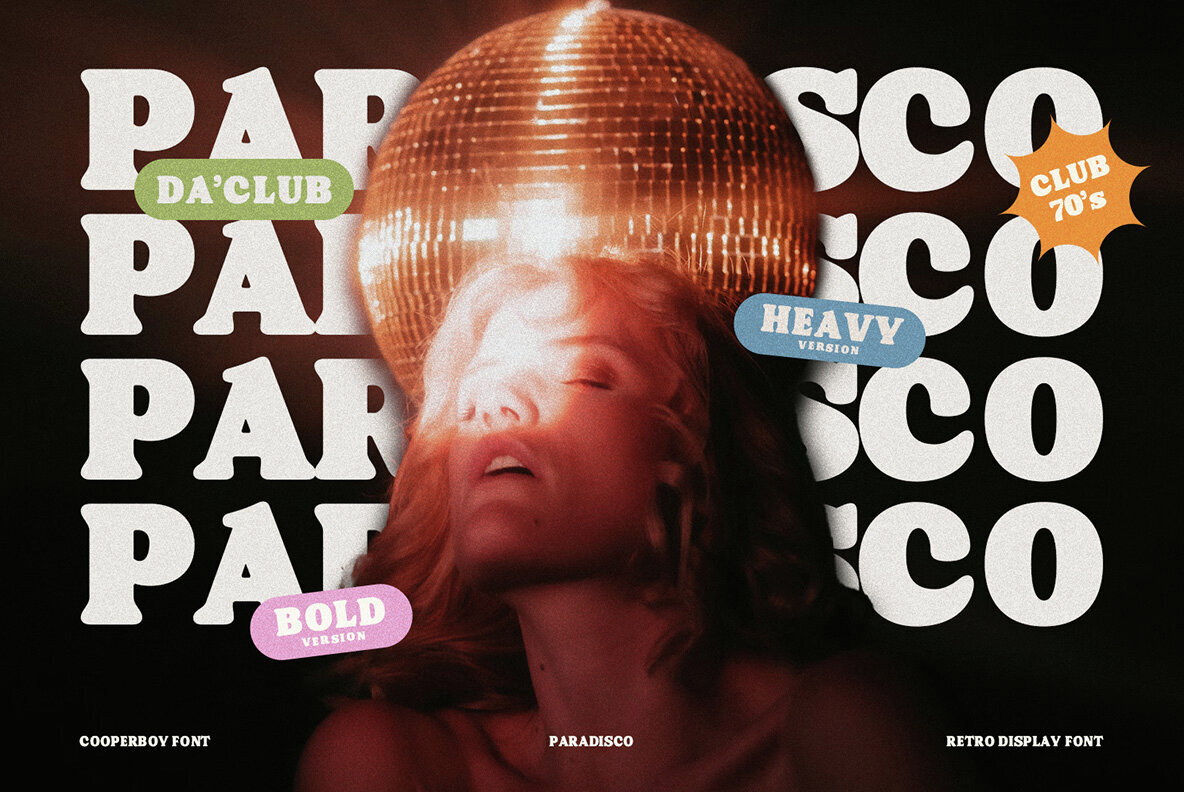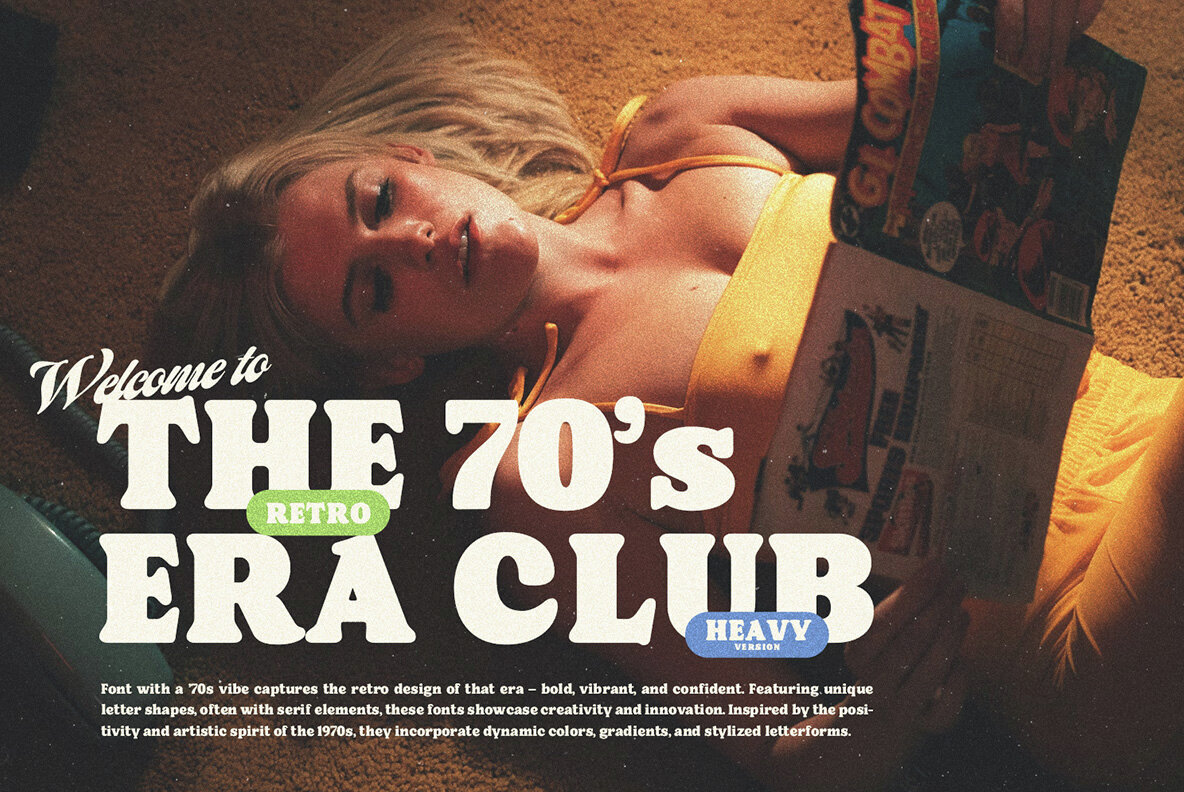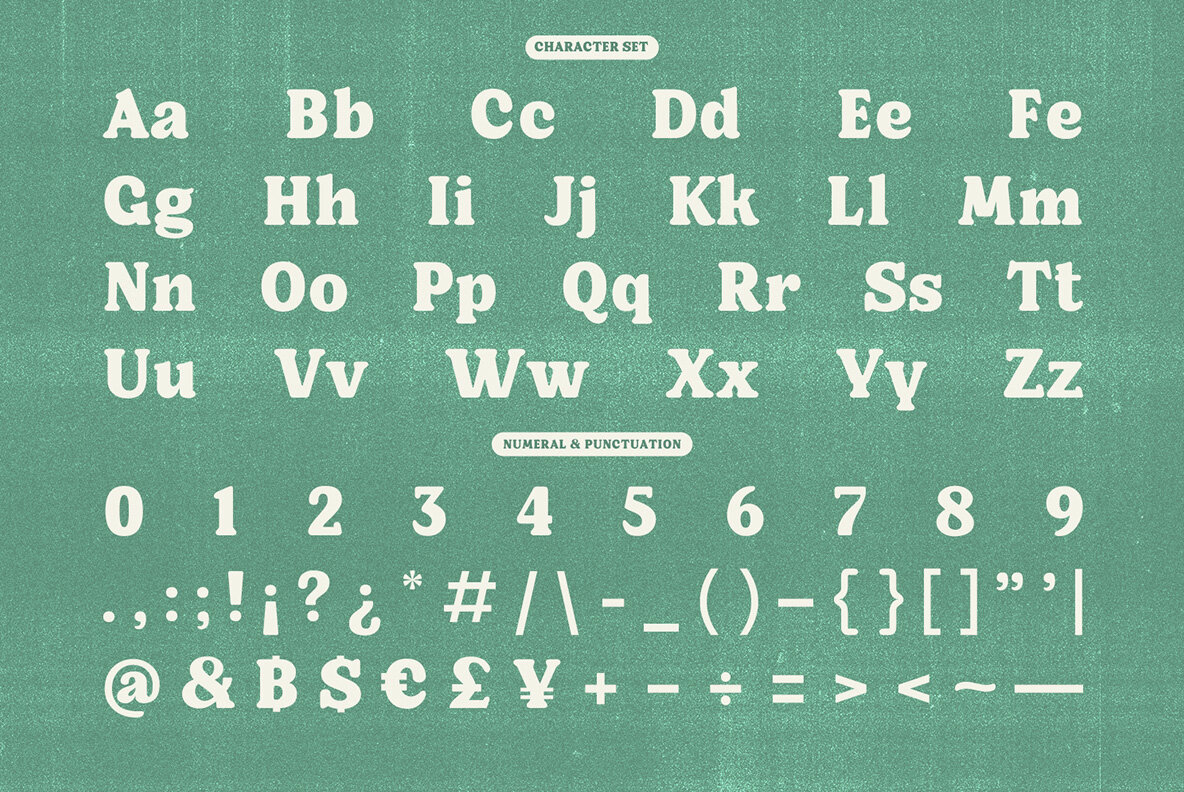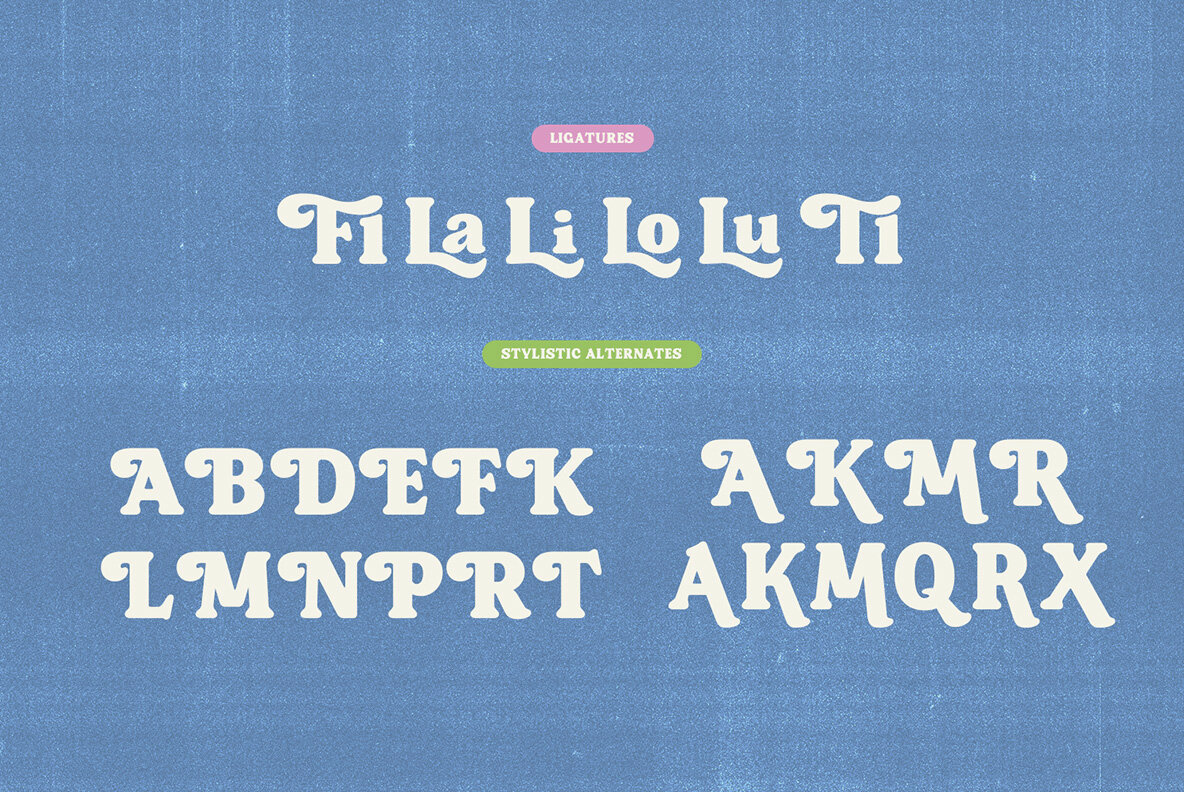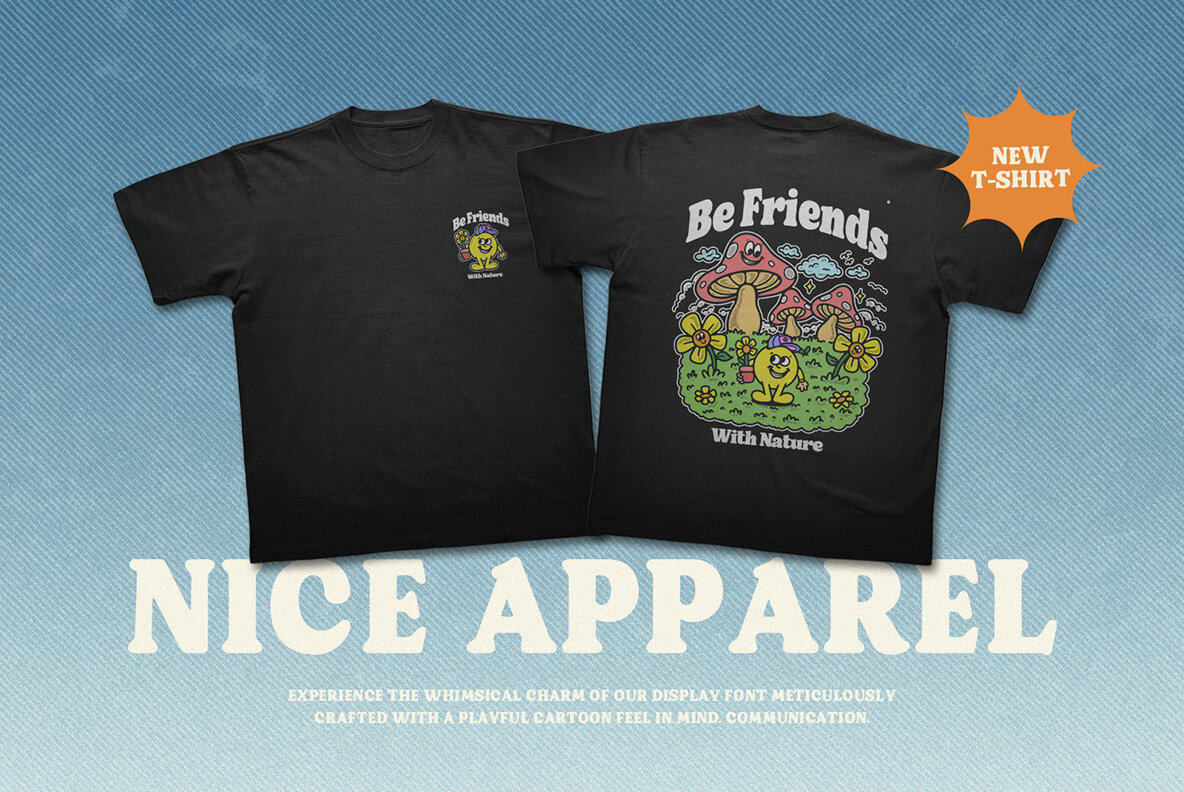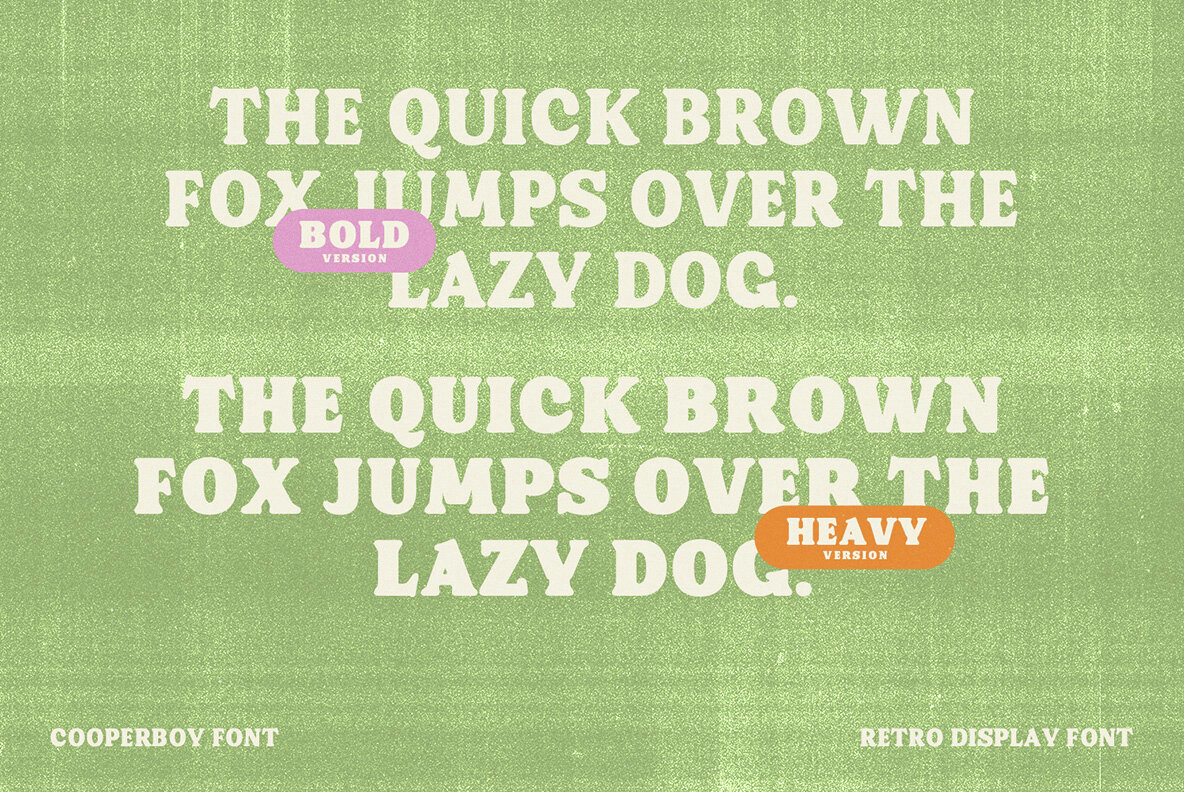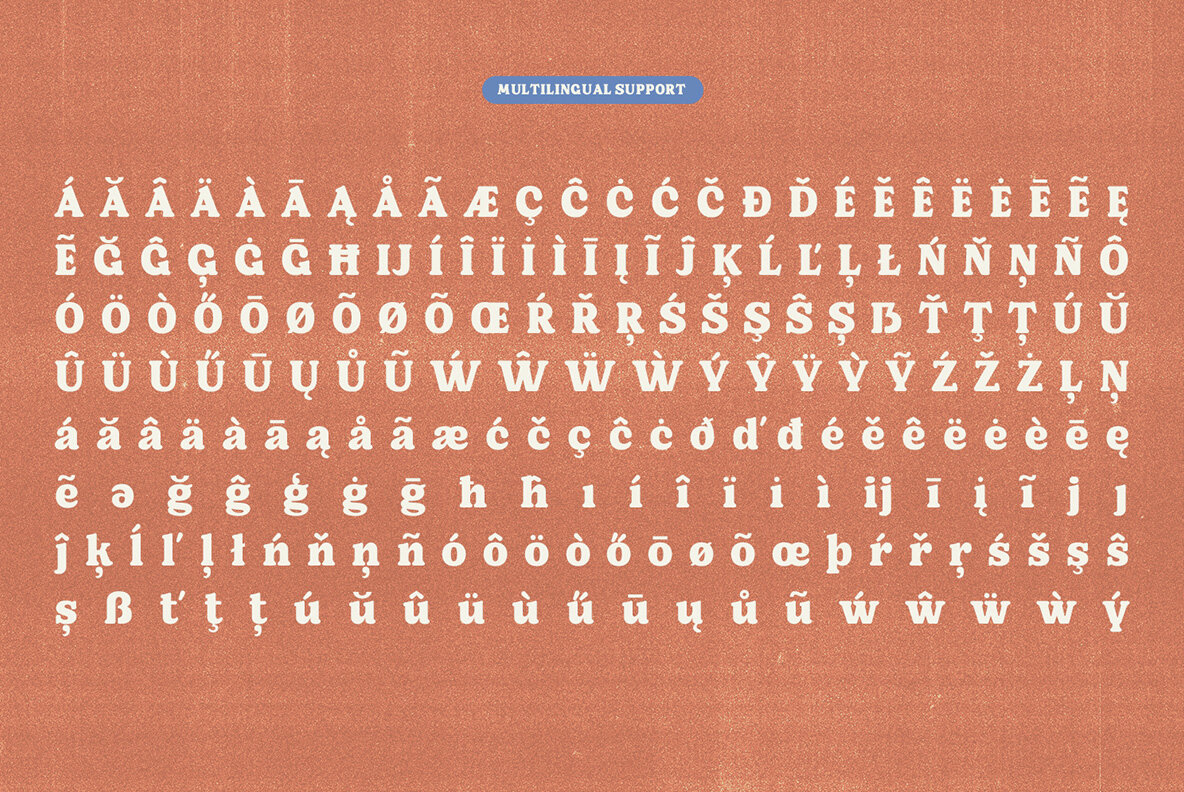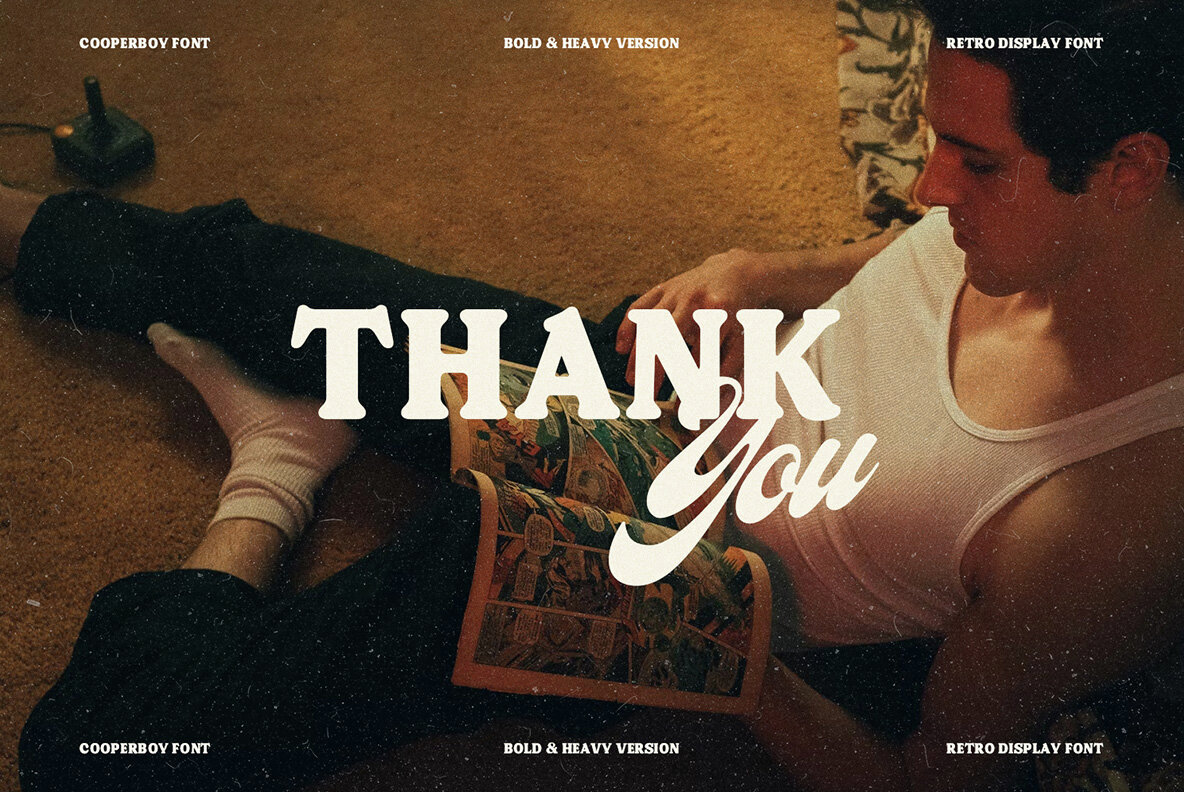
Cooperboy Font
A font with a 1970s vibe typically embodies the retro design aesthetics prevalent during that era. Characterized by unique letter shapes, bold and thick strokes, and often featuring serif elements, these fonts exude a confident and bold personality. The use of vibrant colors, gradients, and stylized letterforms adds a dynamic and visually striking quality. Some fonts may also incorporate futuristic design elements, while others draw inspiration from popular culture, reflecting the artistic and innovative spirit of the 1970s. Whether handwritten, script, or displaying a mix of geometric and futuristic features, these fonts encapsulate the creativity and distinctive style of the era.